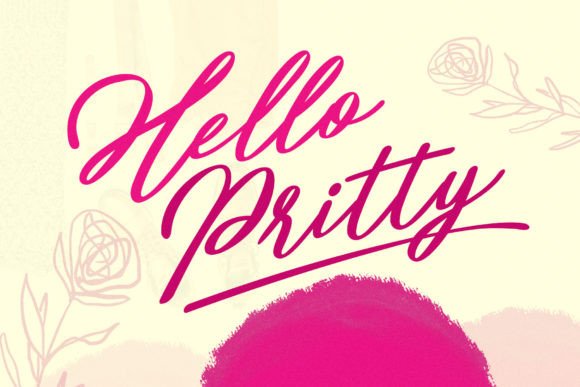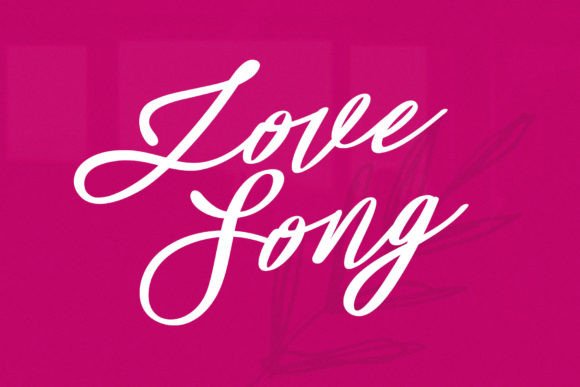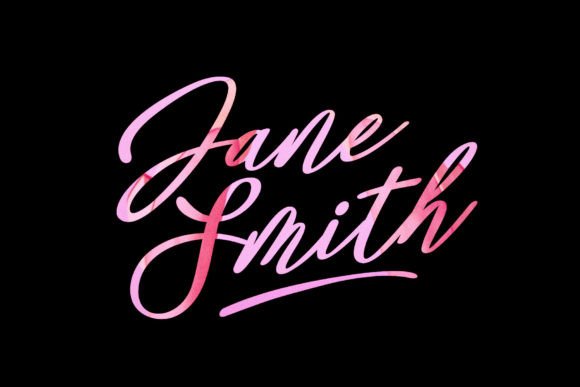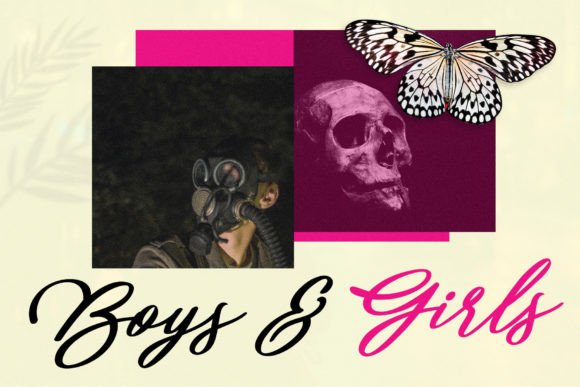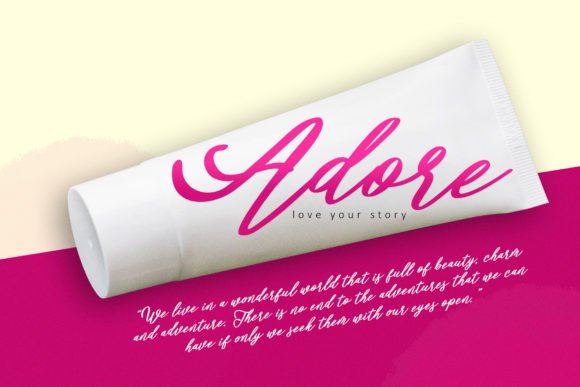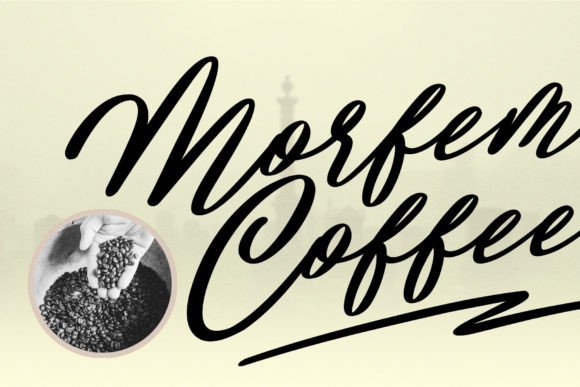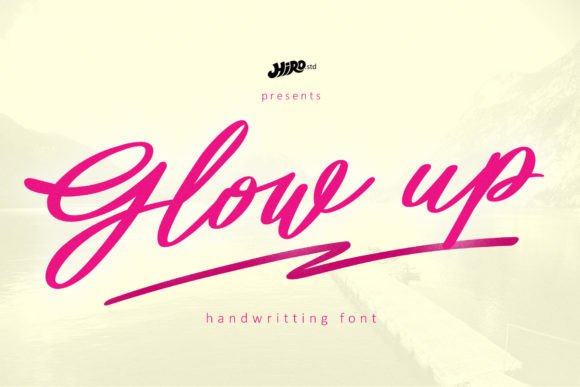
Introducing Glow Up Font: Elevate Your Designs with Timeless Elegance
Are you on the hunt for a font that adds a touch of sophistication and whimsy to your designs? Look no further than Glow Up Font, a lovely and timeless handwritten font that’s perfect for creating eye-catching logos, branding, and quotes. With its unique and beautiful touch, Glow Up Font is sure to make your design come alive!
The Characteristics of Glow Up Font
Glow Up Font boasts a range of characteristics that make it an ideal choice for designers and crafters. Here are just a few of the features that set it apart:
- Handwritten with love: Each letter in Glow Up Font has been carefully crafted by hand, giving it a personal and organic feel that’s hard to replicate with digital fonts.
- Unique and beautiful touch: Every letter has a distinct character that adds to the overall aesthetic of the font. This makes it perfect for creating designs that stand out from the crowd.
- Timeless elegance: Despite being a handwritten font, Glow Up Font exudes a sense of timelessness and sophistication that’s perfect for high-end branding and design projects.
- Versatile: Whether you’re creating logos, branding, quotes, or social media graphics, Glow Up Font is versatile enough to adapt to any design style or project.
Why Choose Glow Up Font?
So, why should you choose Glow Up Font for your next design project? Here are just a few compelling reasons:
- Add a personal touch: With Glow Up Font, you can add a personal touch to your designs that sets them apart from generic, overused fonts.
- Stand out from the crowd: The unique and beautiful touch of Glow Up Font ensures that your designs will stand out from the crowd and grab attention.
- Perfect for branding: Glow Up Font is an excellent choice for branding projects, as it adds a touch of sophistication and elegance that’s hard to replicate with other fonts.
- Easy to use: Despite its unique character, Glow Up Font is easy to use and pairs well with a range of other fonts and design elements.
Tips for Using Glow Up Font
To get the most out of Glow Up Font, here are a few tips to keep in mind:
- Pair with contrasting fonts: Pair Glow Up Font with contrasting fonts to create visual interest and add depth to your designs.
- Experiment with colors: Don’t be afraid to experiment with different colors and textures to add an extra layer of interest to your designs.
- Use it sparingly: While Glow Up Font is beautiful, it can be overwhelming if overused. Use it sparingly to create emphasis and add visual interest.
- Have fun: Most importantly, have fun with Glow Up Font! Experiment with different design styles and techniques to find what works best for you.
In conclusion, Glow Up Font is a lovely and timeless handwritten font that’s perfect for designers and crafters looking to add a touch of elegance and whimsy to their designs. With its unique and beautiful touch, Glow Up Font is sure to make your design come alive! Whether you’re creating logos, branding, quotes, or social media graphics, Glow Up Font is an excellent choice. So why not give it a try and see the magic for yourself?
- Is Glow Up Font suitable for body text?: While Glow Up Font is beautiful, it’s best suited for headlines and titles. For body text, a more legible font may be more suitable.